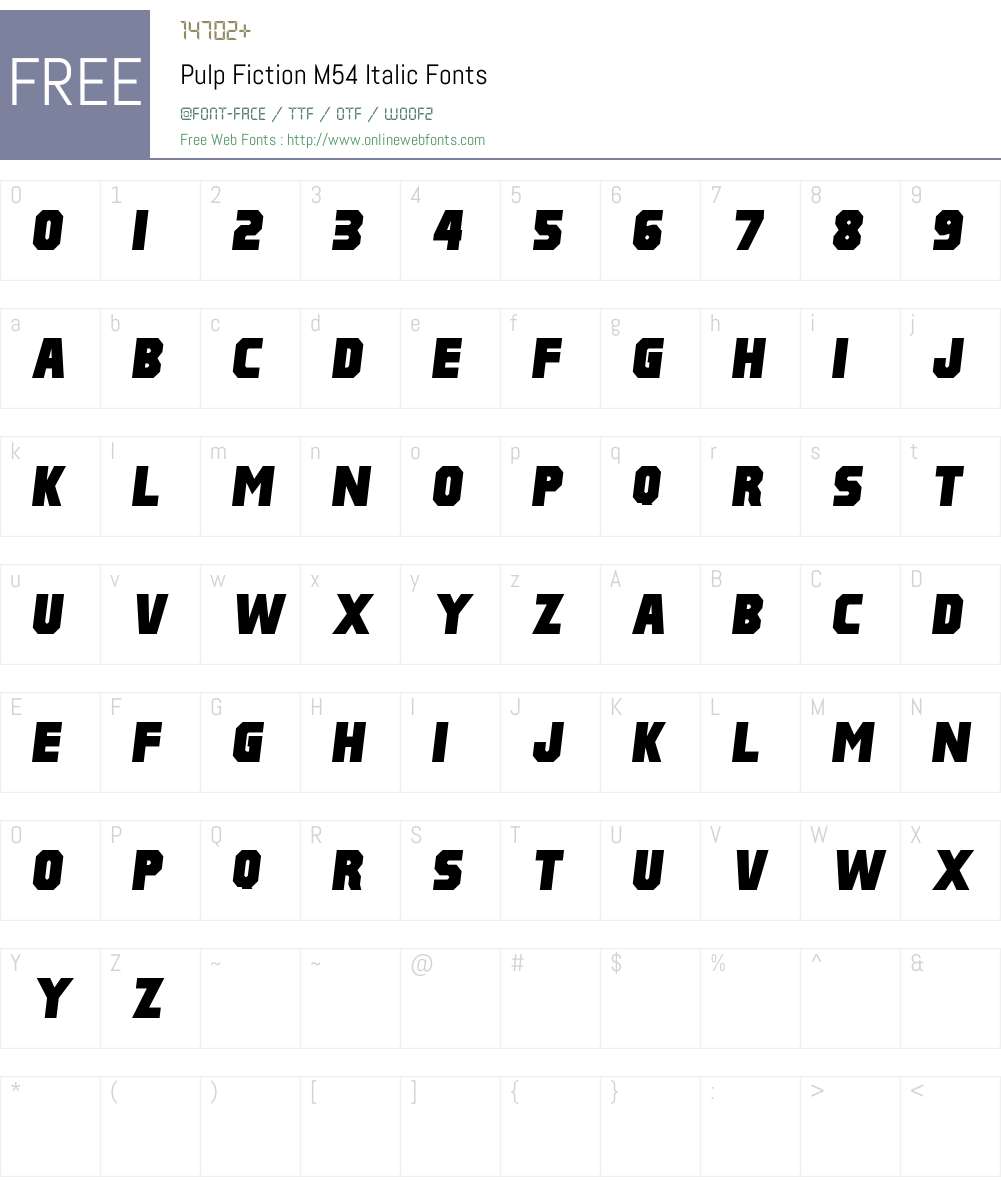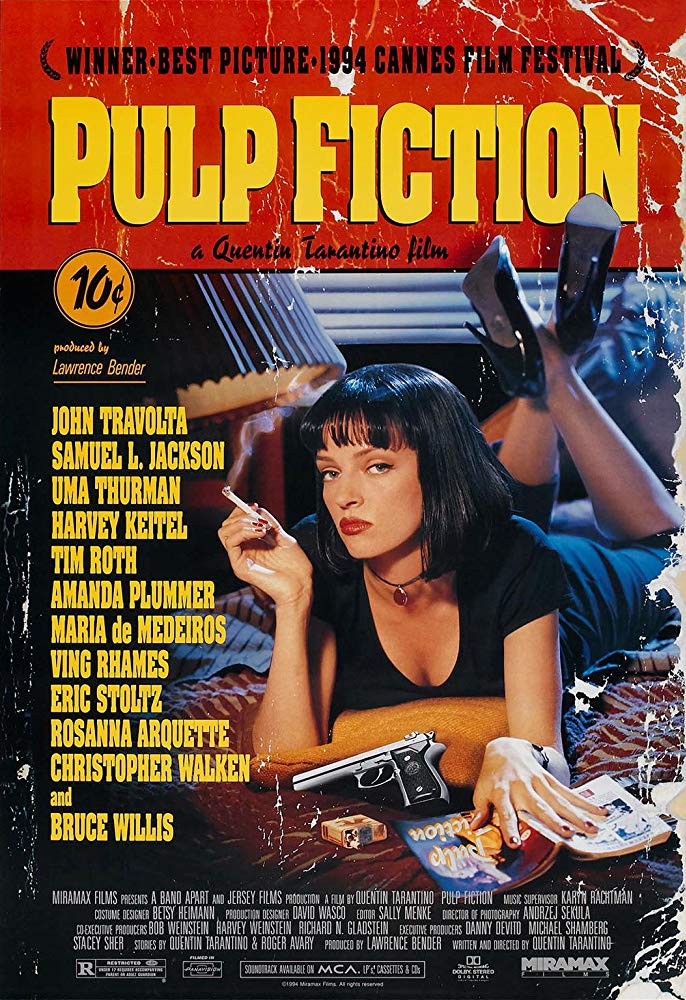
Pulp Fiction Font Free. This font is designed by colin brignall and alan meeks and published by itc. And it was nominated for oscars.
“aachen bold” is the font used in the movie pulp fiction. 100 free fonts alternatives to. Pulp fiction font free download.
Pulp Fiction Font Was Derived From An American Crime Movie “ Pulp Fiction ,” Released In September 1994.
Today we are introducing you to one of the most innovative. Every font is free to download! A chunky sharp edged typeface, reminiscent of collegiate style typefaces.
The Great Famous Movie Font.
Classics (baskerville, futura, garamond) alongside hot new fonts (brice, moneta,novera). Pulp fiction logo font is a perfect mix of these movie ideas, but also adding new twists. 6 rows pulp fiction font free download.
Fonts Used In The Pulp Fiction Movie Poster.
About pulp fiction is a 1994 american black comedy crime film directed by famous filmmaker quentin tarantino. March 8, 2022 march 7, 2022 free fonts by hipfonts. About pulp fiction heavy font download the pulp fiction heavy font for mac or windows in opentype, truetype or postscript format.